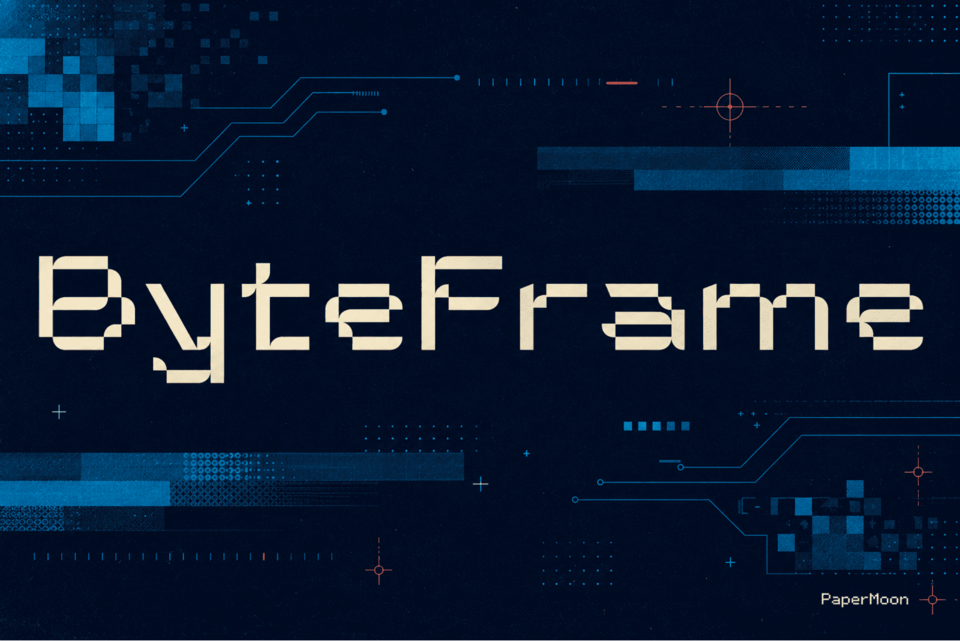
ByteFrame - Retro Pixel Font Duo
ByteFrame is a contemporary pixel font that fuses the energy of retro 8-bit arcade culture with the precision today's design work demands. Think crisp, grid-aligned letterforms with a nostalgic heartbeat: every glyph sits on a clean monospaced structure, giving you that classic video game texture while keeping modern readability for digital and print work alike. Whether it is a gaming interface, a pixel art project, a tech brand mark, or a futuristic editorial spread, ByteFrame brings authentic arcade character without the sloppy edges old pixel faces often carry.
This typeface ships as a Font Duo in two styles - Regular and Rounded. Regular delivers the sharp, technical, monospaced voice - ideal for HUDs, code aesthetics, and precise retro-tech layouts. Rounded softens the corners for a friendlier, more approachable take that still reads unmistakably pixel-native. Having both in one download means you can switch between hard-edged and warm in seconds, without buying a second font.
Key features:
• Two styles, one font duo - Regular and Rounded, each with crisp, balanced pixel letterforms.
• 383 glyphs per style - full uppercase, lowercase, numerals, punctuation, and symbols.
• Extensive Latin coverage - Basic Latin, Latin-1 Supplement, and Latin Extended-A/B for multilingual Western European projects (no Cyrillic).
• OpenType features - standard ligatures (liga), historical forms (hist), ordinals (ordn), superscripts (sups), fractions (frac), stylistic alternates (aalt), localized forms (locl), plus tuned kerning (kern).
Where it shines: gaming interfaces and UI/HUD layouts, pixel art and indie game titles, tech and startup branding, retro arcade posters and flyers, futuristic editorials and digital campaigns, stream overlays, social media graphics, logo and wordmark work, and any project that wants a clean 8-bit attitude.